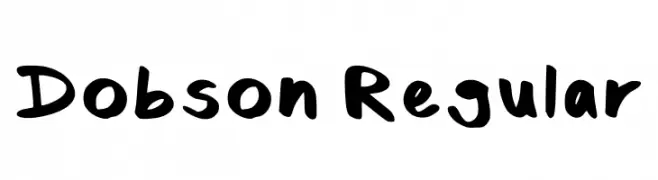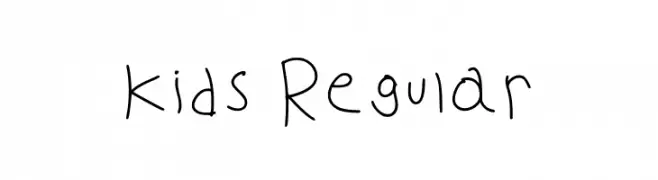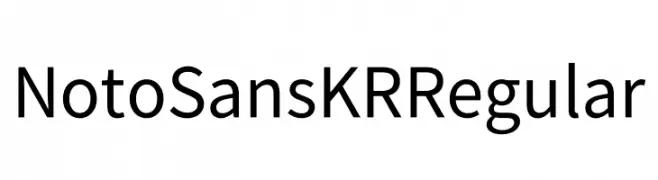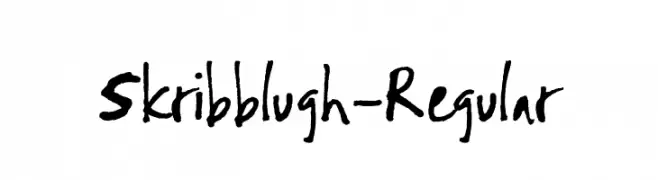
A playful and whimsical font with quirky, irregular letterforms.
A playful, handwritten font with a childlike charm and irregular strokes.
A modern, clean sans-serif typeface with excellent readability and balance.
A modern, rounded sans-serif font with a clean and approachable style.
A playful, handwritten font with irregular strokes and a casual style.
A playful, informal handwritten font with irregular strokes and a lively appearance.
A modern, geometric sans-serif font with consistent stroke width and clear character distinction.
Playful handwritten font with irregular strokes.